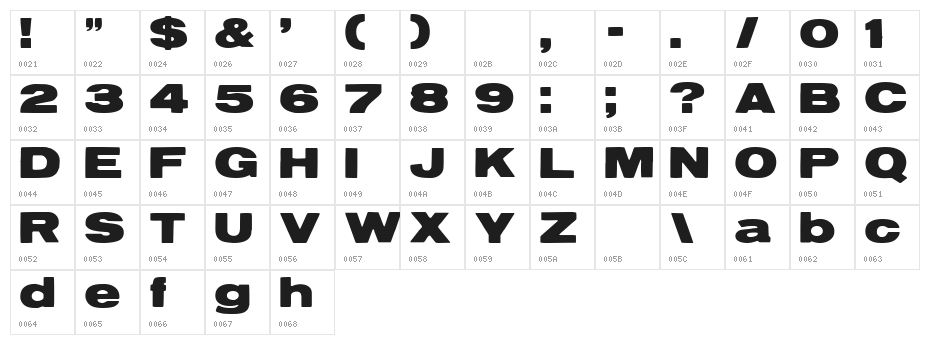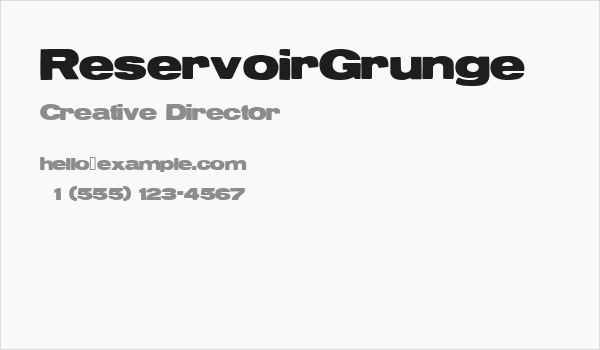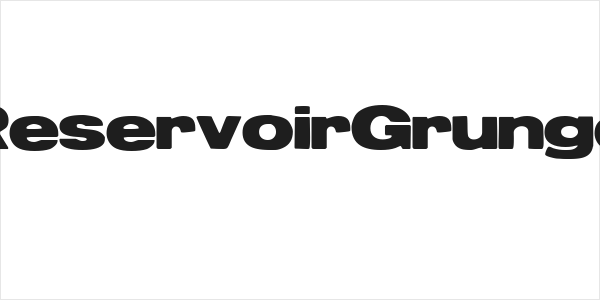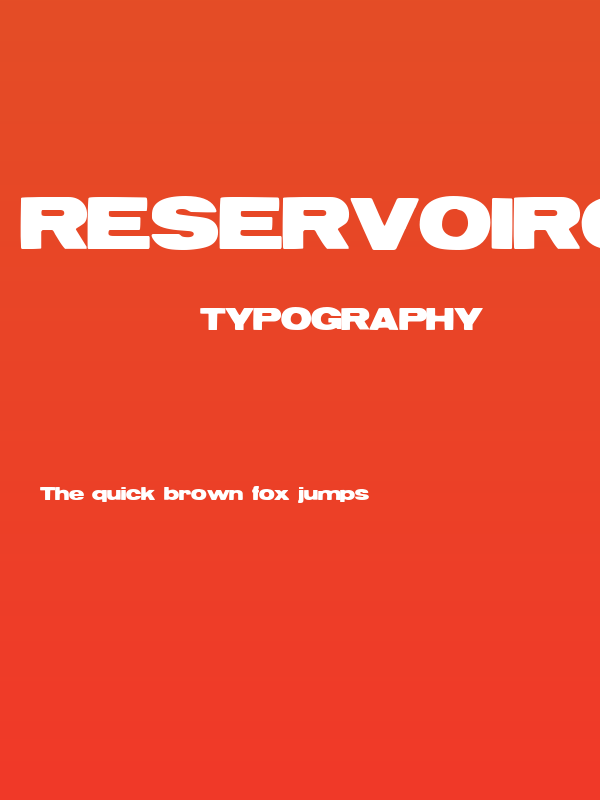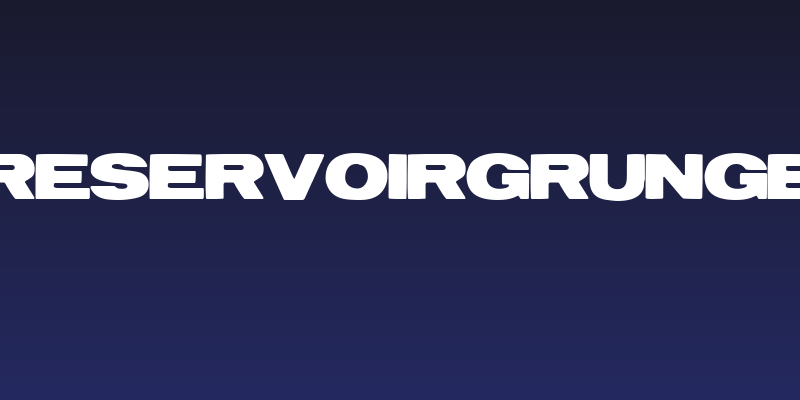
ReservoirGrunge Font
ReservoirGrunge Description
This font features a bold and impactful design with thick, uniform strokes that create a strong visual presence. The characters are tightly spaced, enhancing its boldness and making it ideal for attention-grabbing headlines. The uppercase and lowercase letters maintain a consistent weight, contributing to a cohesive and powerful look. The numbers and special characters follow the same bold style, ensuring uniformity across all text elements. Its robust and solid appearance makes it suitable for projects that require a commanding and assertive typeface.